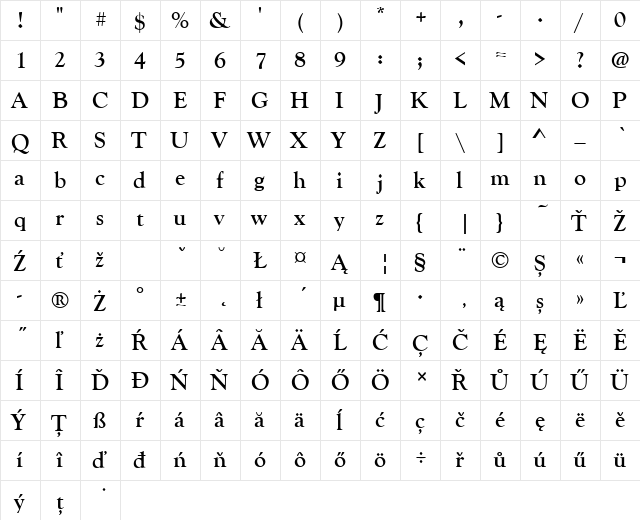
GoudyOldStyTEE Bold Font Preview
GoudyOldStyTEE Bold
GoudyOldStyTEE Bold Font Details
Design Context for GoudyOldStyTEE Typeface
GoudyOldStyTEE is a composed and adaptable typeface that performs quietly and consistently across a wide range of design contexts. The heavy weight commands attention and anchors typographic hierarchies.